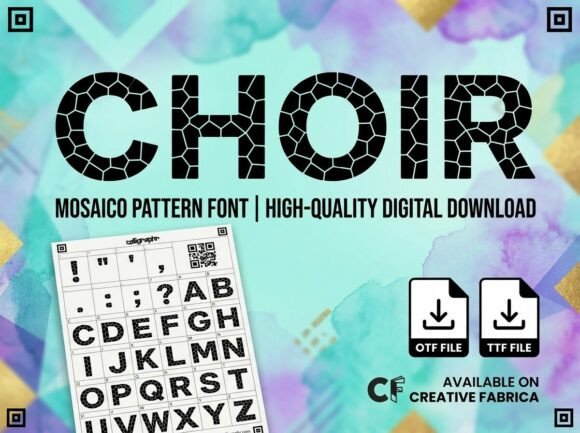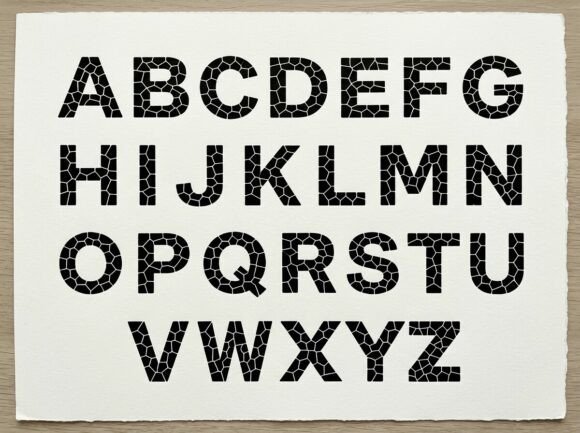
The Choir Font: A Masterpiece of Modern Typography
I’ll never forget the design moment that led me to discover Choir Font. I was working on a project for a local architecture firm, and they asked me to create a logo that would reflect their brand’s unique blend of traditional and modern styles. I spent hours scouring font libraries, but nothing seemed quite right. That was until I stumbled upon Choir Font, a precision display typeface that would change the game.
First Impressions: A Love Letter to Choir Font
So, what makes Choir Font so special? Here are a few things I love:
- ✨ **Unique Mosaic Grid**: The internal grid of Choir Font is unlike anything I’ve seen before. It’s like looking at a piece of stained glass, but with letters.
- ✅ **Heavy Structural Weight**: This font means business. It’s sturdy, confident, and perfect for making a statement.
- 💻 **OpenType Features**: Choir Font comes with a range of OpenType features, including stylistic alternates and glyphs, that make it incredibly versatile.
Of course, no font is perfect. Here are a few things to keep in mind:
- 🤔 **Limited Use Cases**: Choir Font is a display typeface, so it’s best used in headlines or titles rather than body text.
- ⚠️ **Kerning Issues**: I’ve noticed that the kerning can be a bit off in some situations, so be sure to adjust as needed.
A Practical Guide to Using Choir Font
Alternatives to Choir Font
If you love Choir Font but want to explore other options, here are a few alternatives:
- Playfair Display: This elegant display typeface features a similar sense of luxury and sophistication. Use it for high-end branding or editorial design.
- Museo: With its sleek, modern lines, Museo is perfect for creative tech startups or innovative companies. It has a similar structural weight to Choir Font.
- Raleway: This elegant sans-serif font features a similar sense of refinement and poise. Use it for boutique galleries or architecture firms.
- Montserrat: This geometric sans-serif font has a similar urban feel to Choir Font. Use it for modern branding or digital design.
The Story Behind Choir Font
Choir Font was designed with a specific vision in mind: to capture the essence of ancient stained-glass artistry and modern digital branding. The designer wanted to create a font that would bridge the gap between traditional craftsmanship and modern typography.
| Font Name | Choir Font |
| Author | grifvixcolor |
| What is Choir Font best used for? | Choir Font is perfect for independent architecture identities, boutique gallery logos, creative tech startups, and high-impact social media headers. |
| Is Choir Font easy to read? | Choir Font is a display typeface, so it’s best used in headlines or titles rather than body text. However, its unique mosaic grid and heavy structural weight make it highly legible. |
| Is Choir Font available in different weights? | Choir Font currently comes in one weight, but its unique design and OpenType features make it incredibly versatile. |